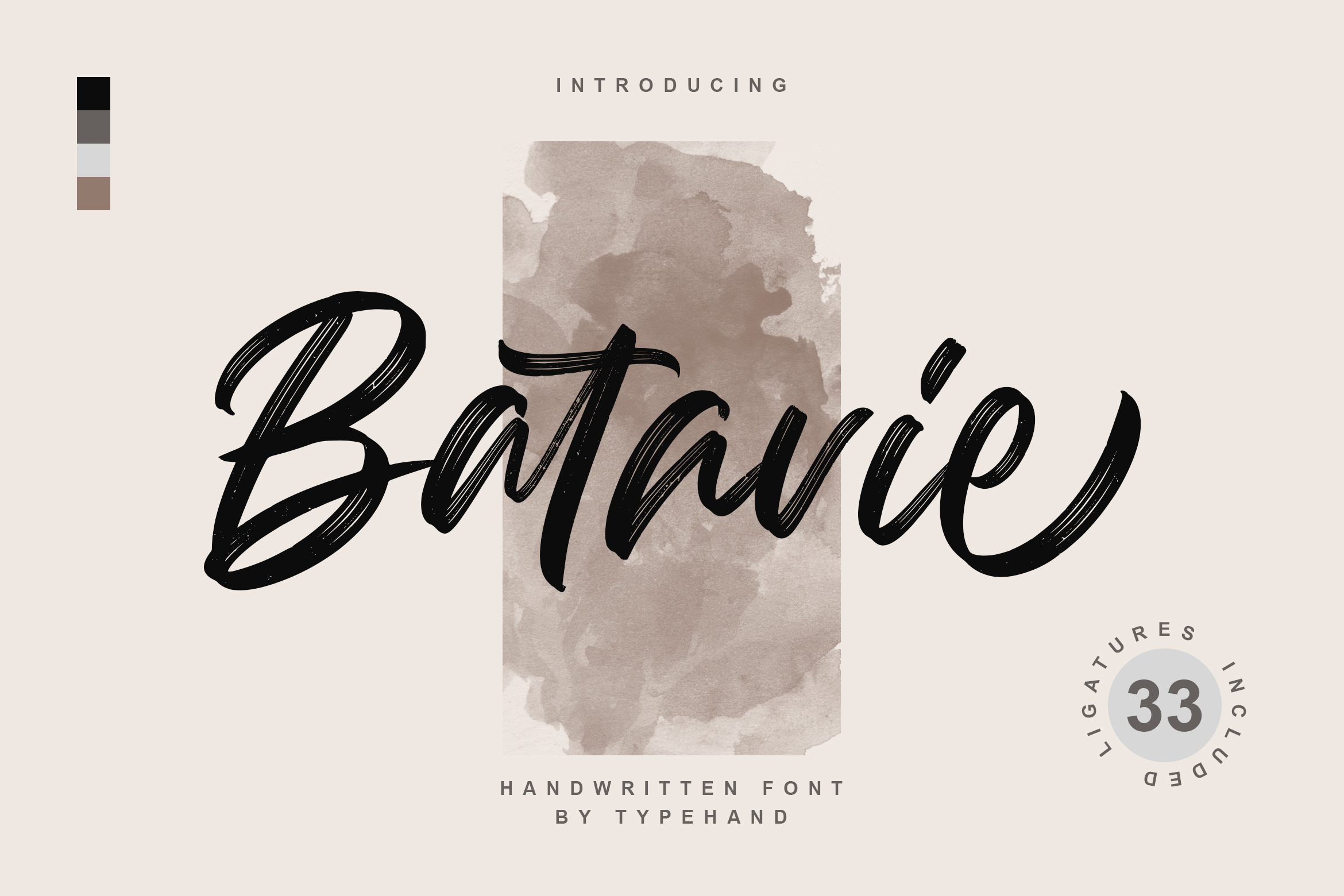
Batavie - Scratch Handwritten Font
Batavie is a scratch handwritten font. Perfect for greeting cards, wedding stationery, photographer watermarks logos, modern websites, apparel design and more.
Batavie features handwritten ligatures, beginning and end swashes for lowercase letters and heart connections
Batavie Font Features:
- Full Set of standard alphabet and punctuation
- Handwritten ligatures
- Multilingual Characters